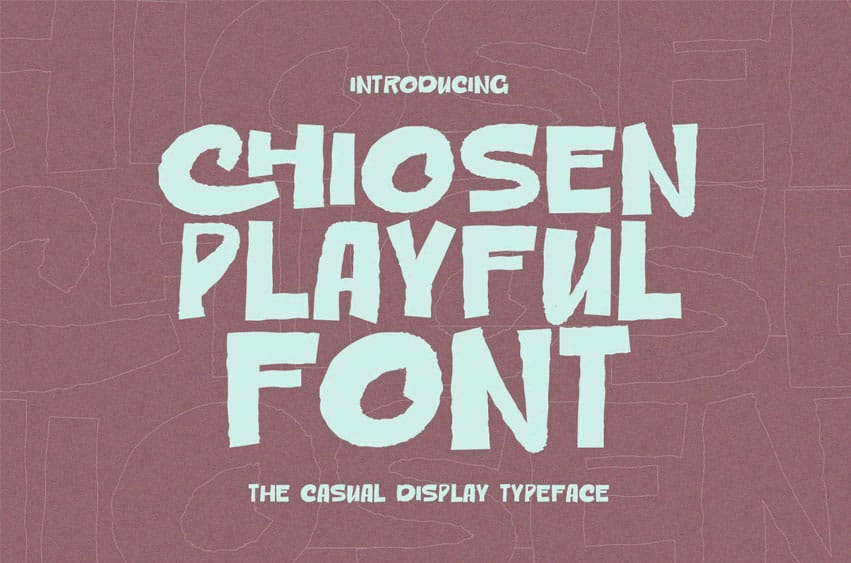
Chiosen Font is a playful, casual display brush font featuring bold strokes and fun characters, along with some unique ligatures that add to its creative appeal. This font supports over 100 languages, making it versatile for various projects. It’s well-suited for logo design, social media graphics, movie titles, book covers, and both short and long text formats.
Additionally, it pairs beautifully with sans-serif or serif fonts, making it an excellent choice for secondary text. Create stunning work with Chiosen Font!